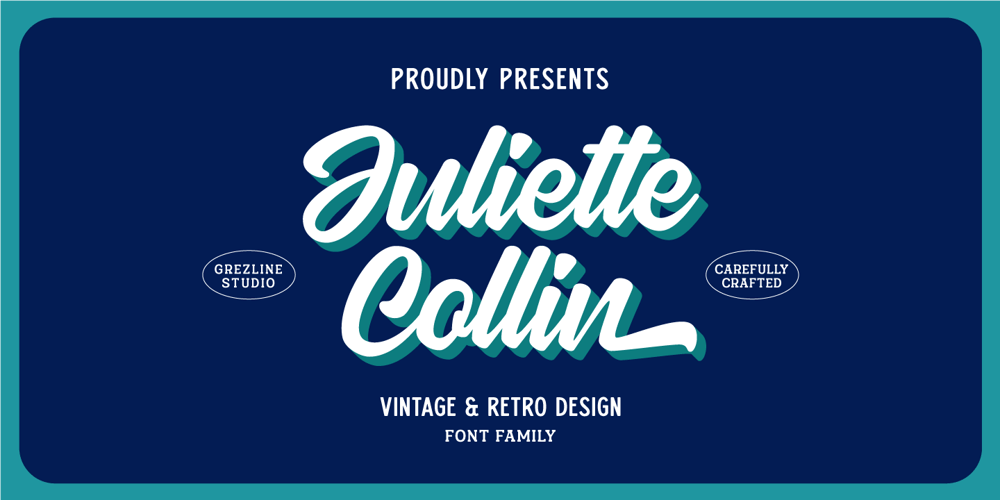
Juliette Collin Font Family was designed by Akhmad Reza Fauzi and published by Grezline Studio. Juliette Collin contains 6 styles and family package options. Juliette Collin is a font family consist of script, sans serif and slab with a charming vintage personality. They also have strong and bold characteristics. Juliette Collin is perfect for headings, covers, posters, logos, quotes, product packaging, merchandise, social media and much more!Feature : Alternate & Ligature Multilingual Language Works on PC & Mac Simple installations Accessible in the Adobe Illustrator, Adobe Photoshop, Adobe InDesign, even works on Microsoft Word. Thank you!Grezline Studio – Akhmad Reza Fauzi